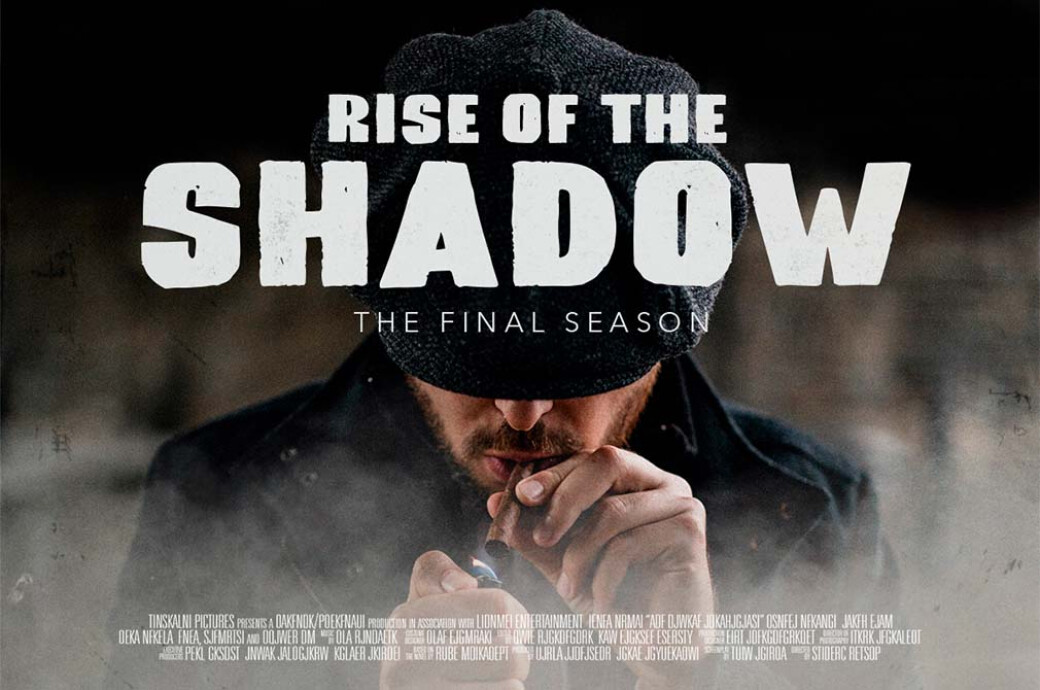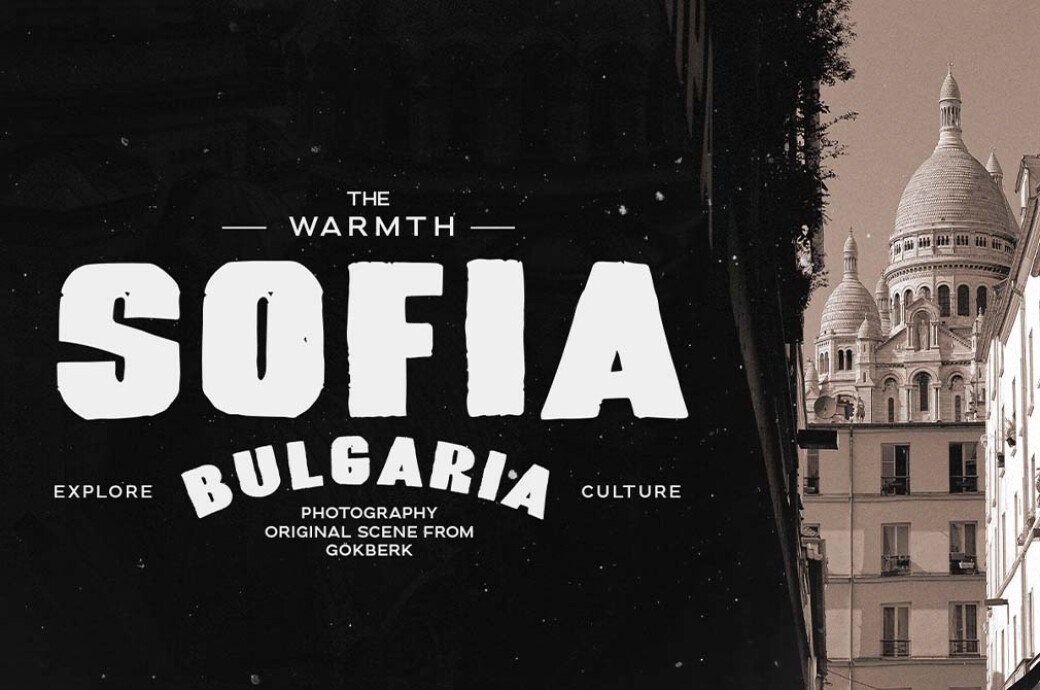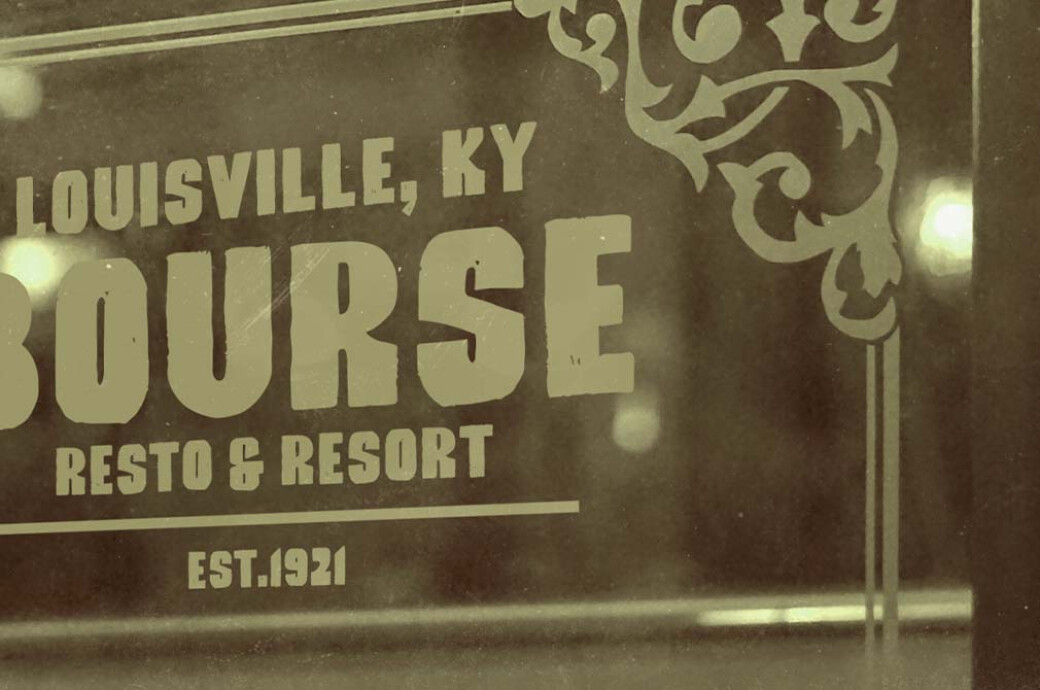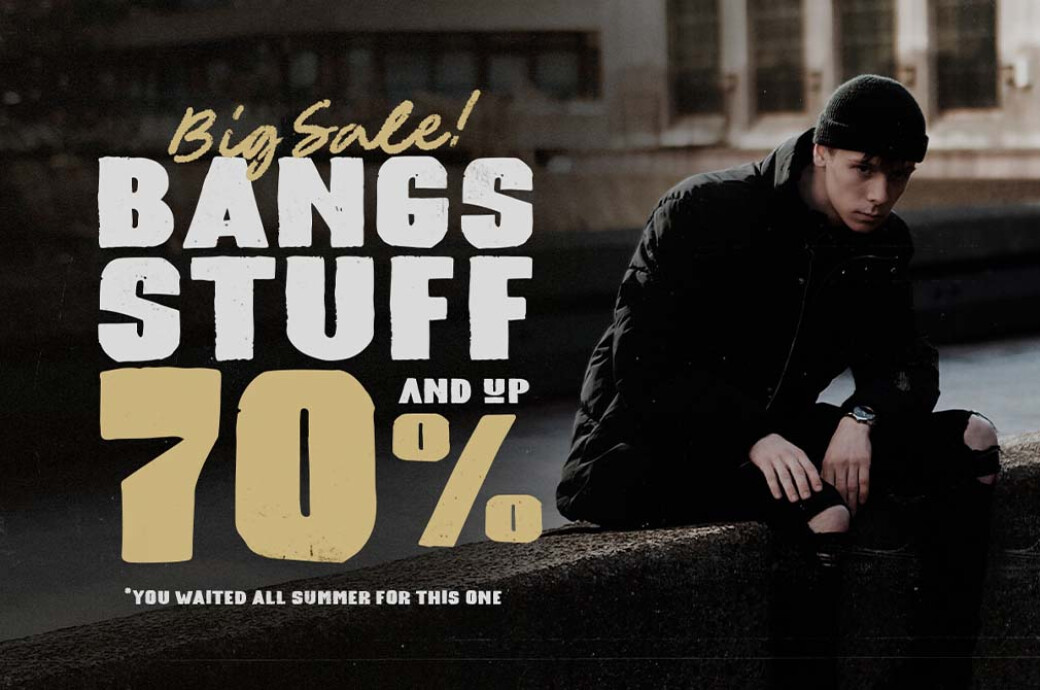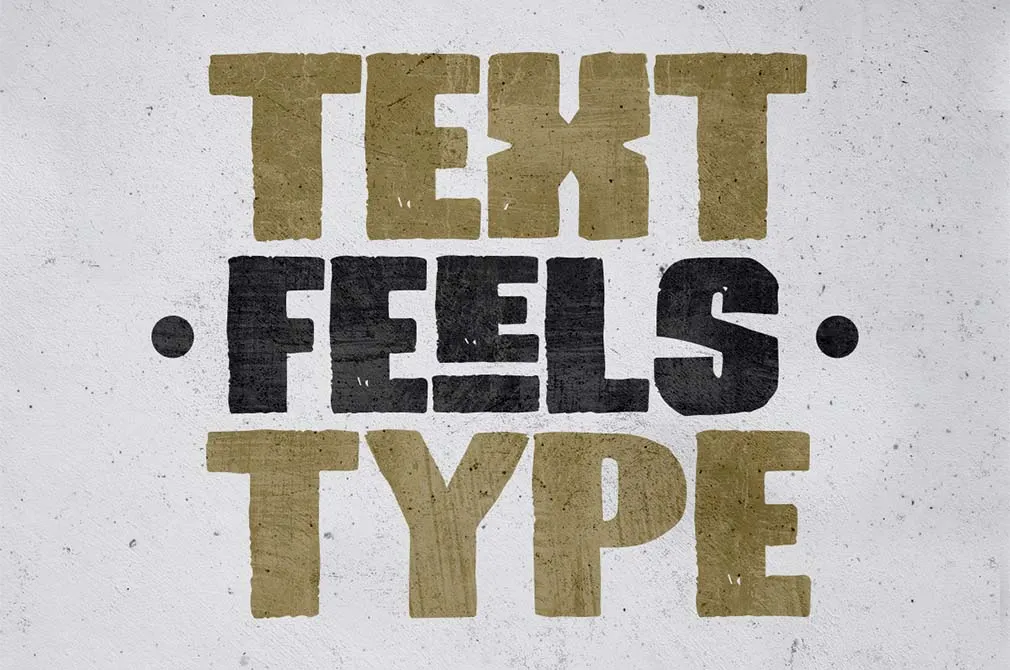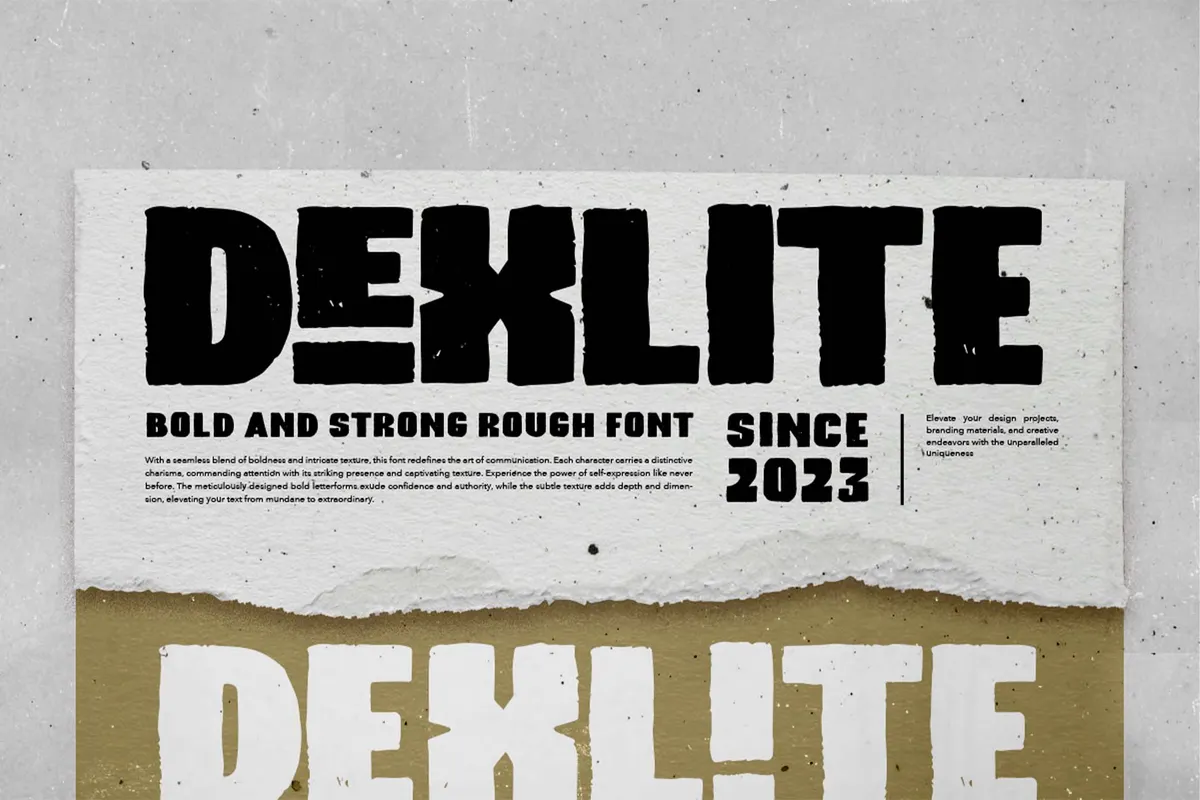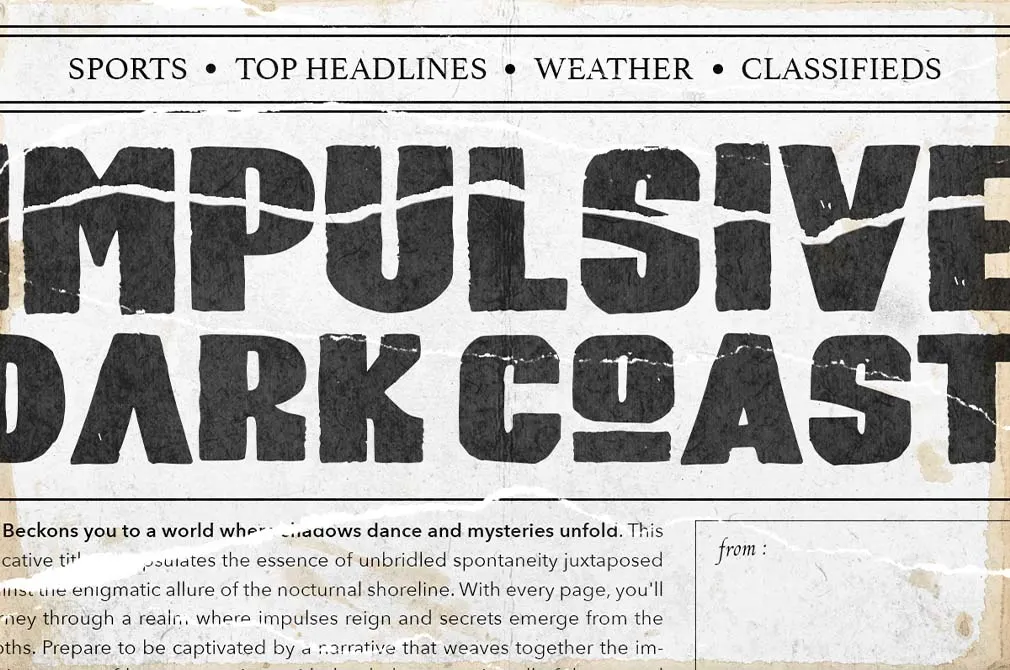
Dexlite — Bold Rough Font
Dexlite
Up for a vintage print look, but want to avoid being overly fancy and deliberate? Here is a strong font with textured and rough shape for that case. It will help you to simulate the chunky look of an old newspaper headlines.
It is an all-caps font with stylistic variants provided through the lowercase set. There are also numerals, an extended selection of punctuation marks, and multilingual support included, so you won't run out of opportunities to express your idea in print. This font encourages you to be as bold as it is — headlines, apparel labels, movie posters, and even business cards, everything made possible with the Dexlite by your side.